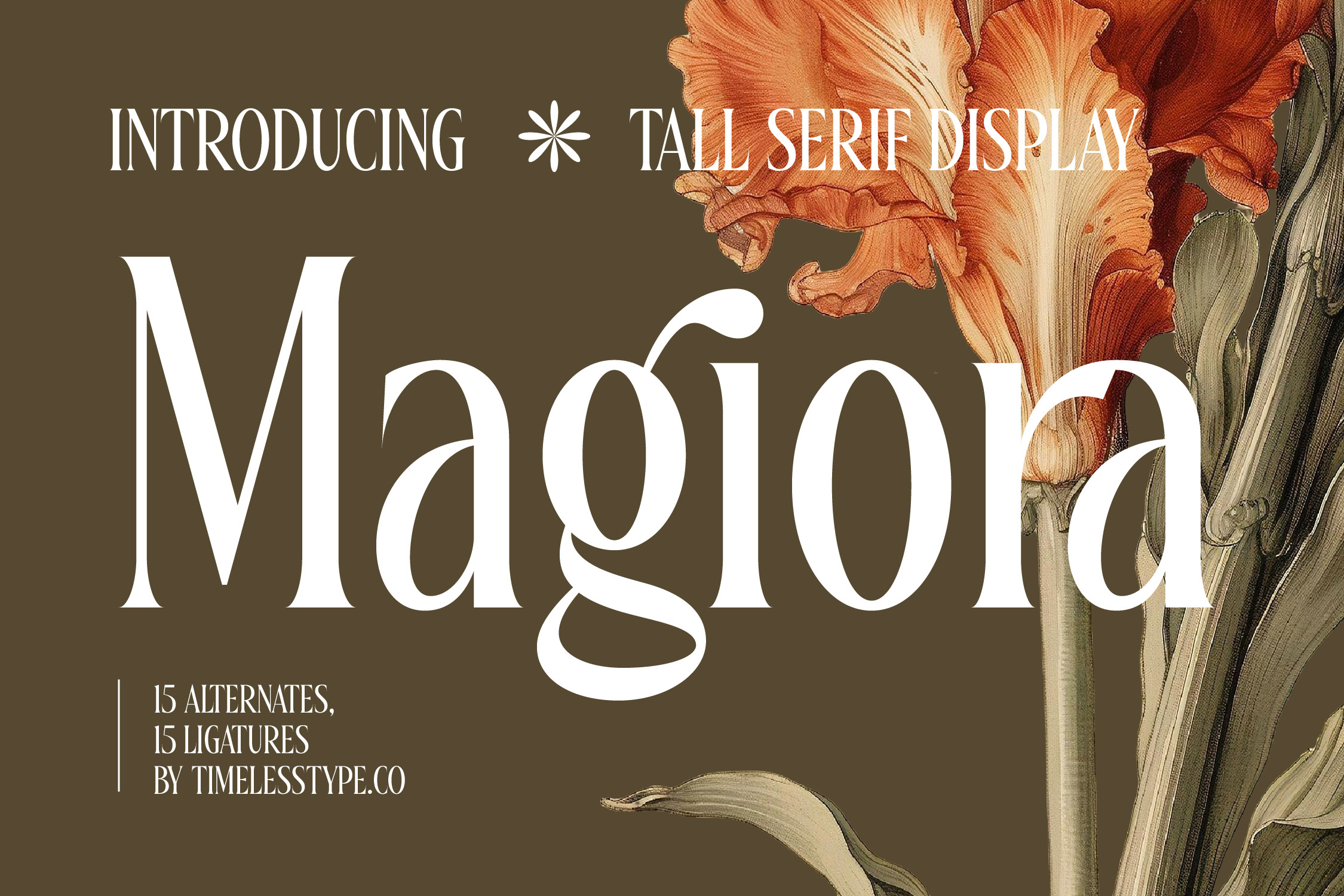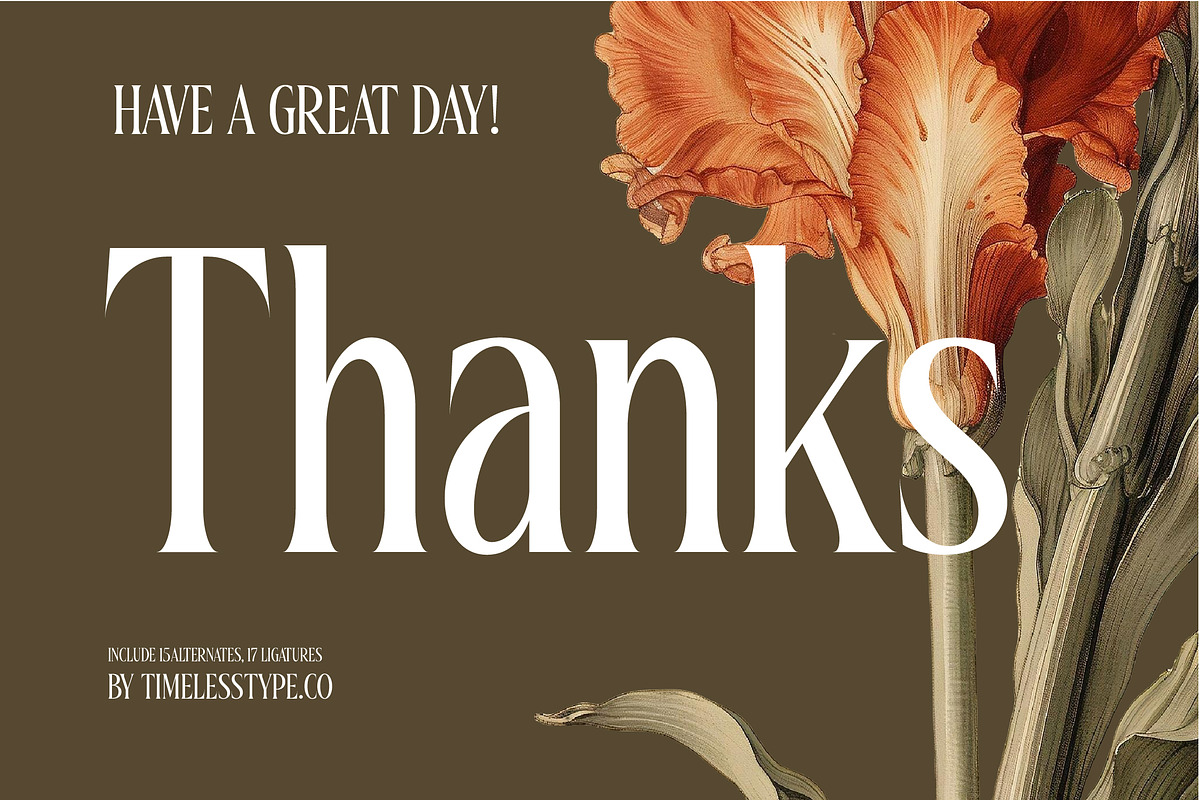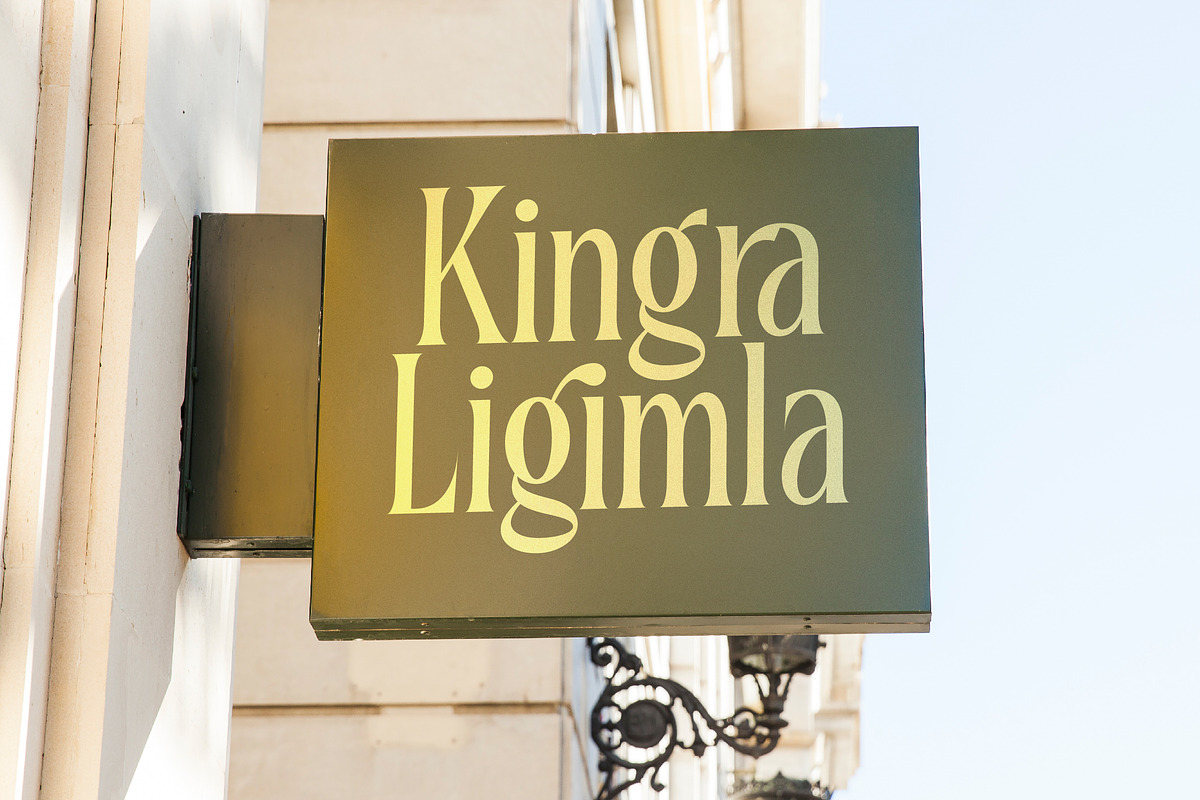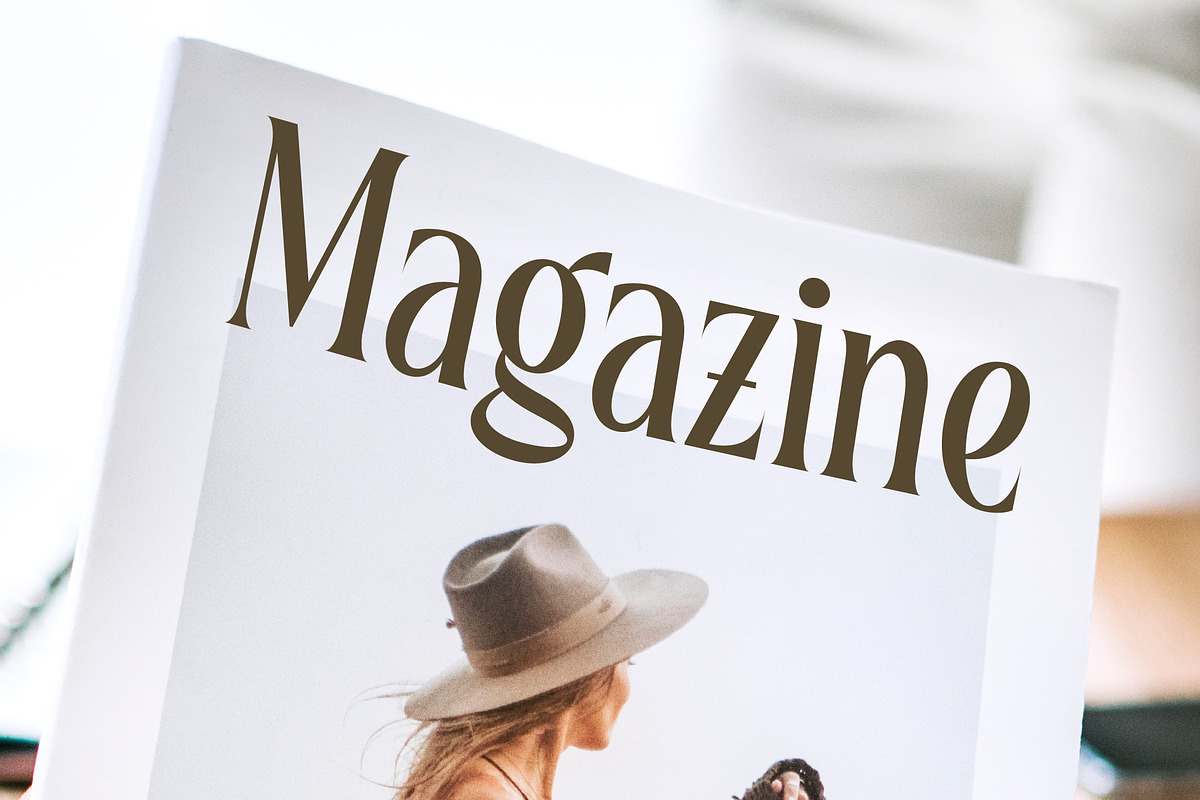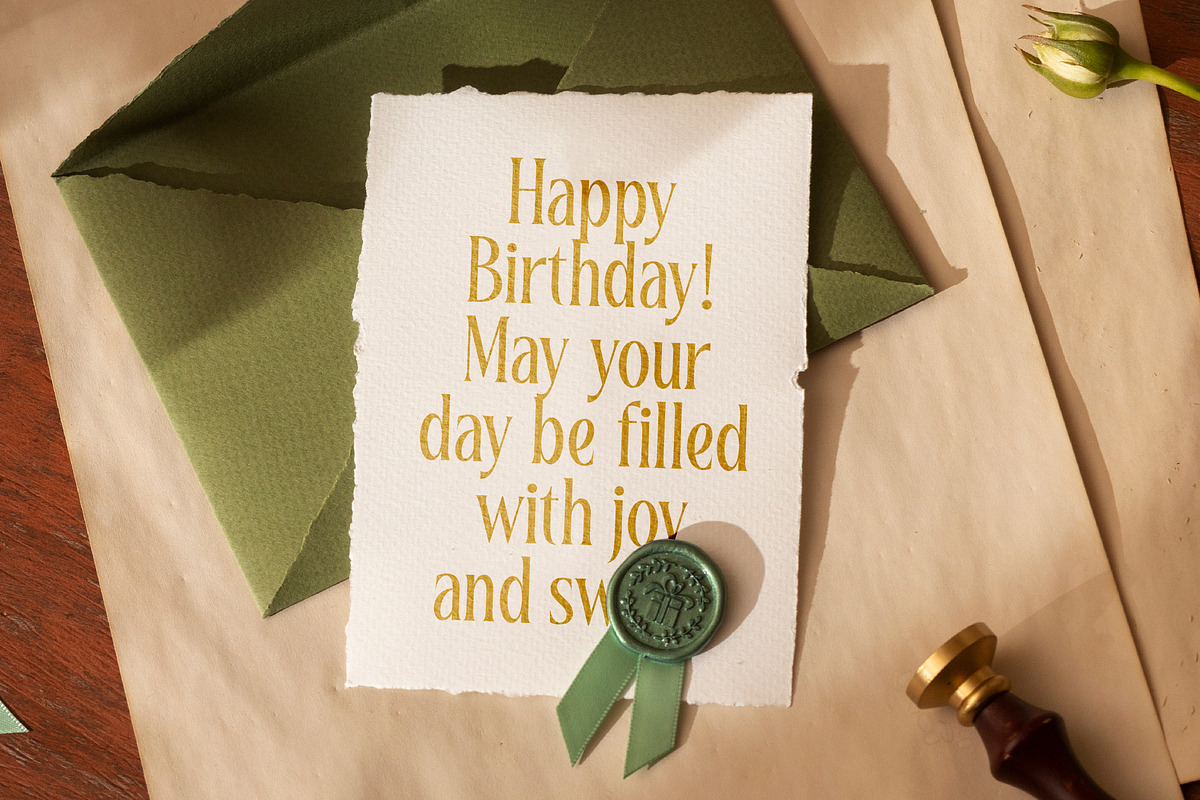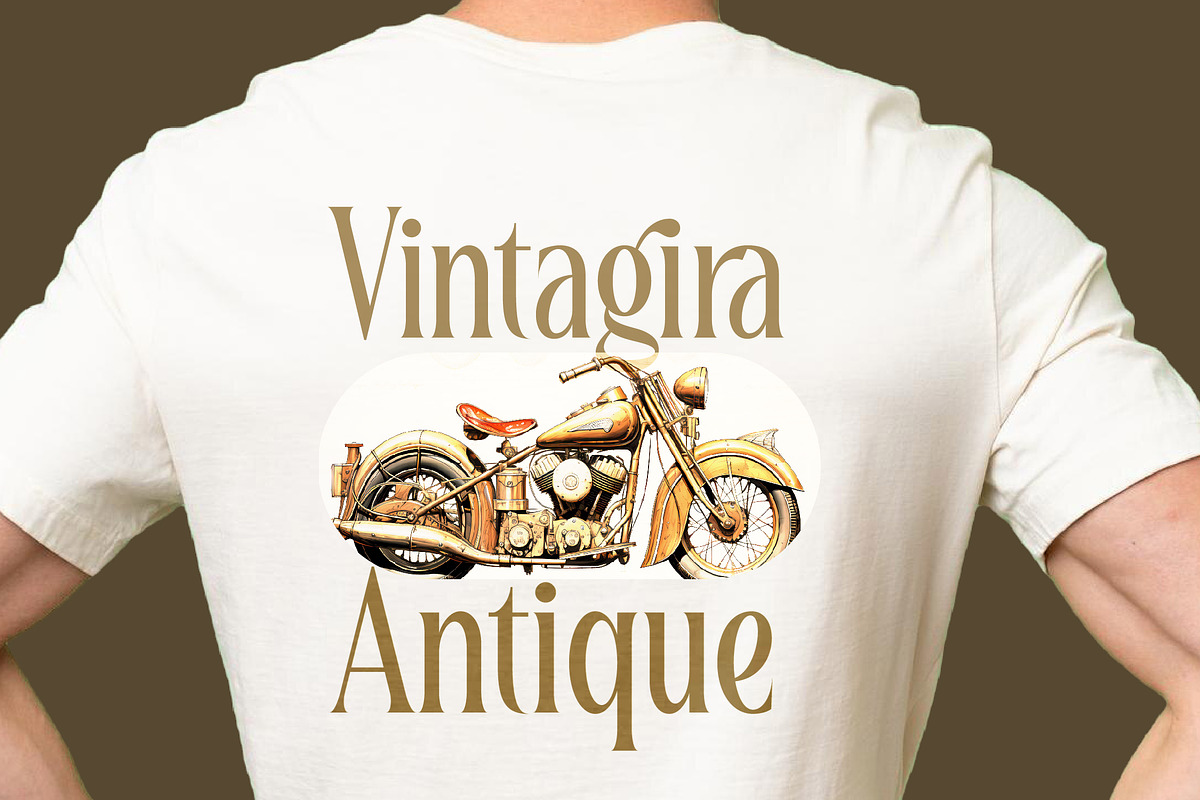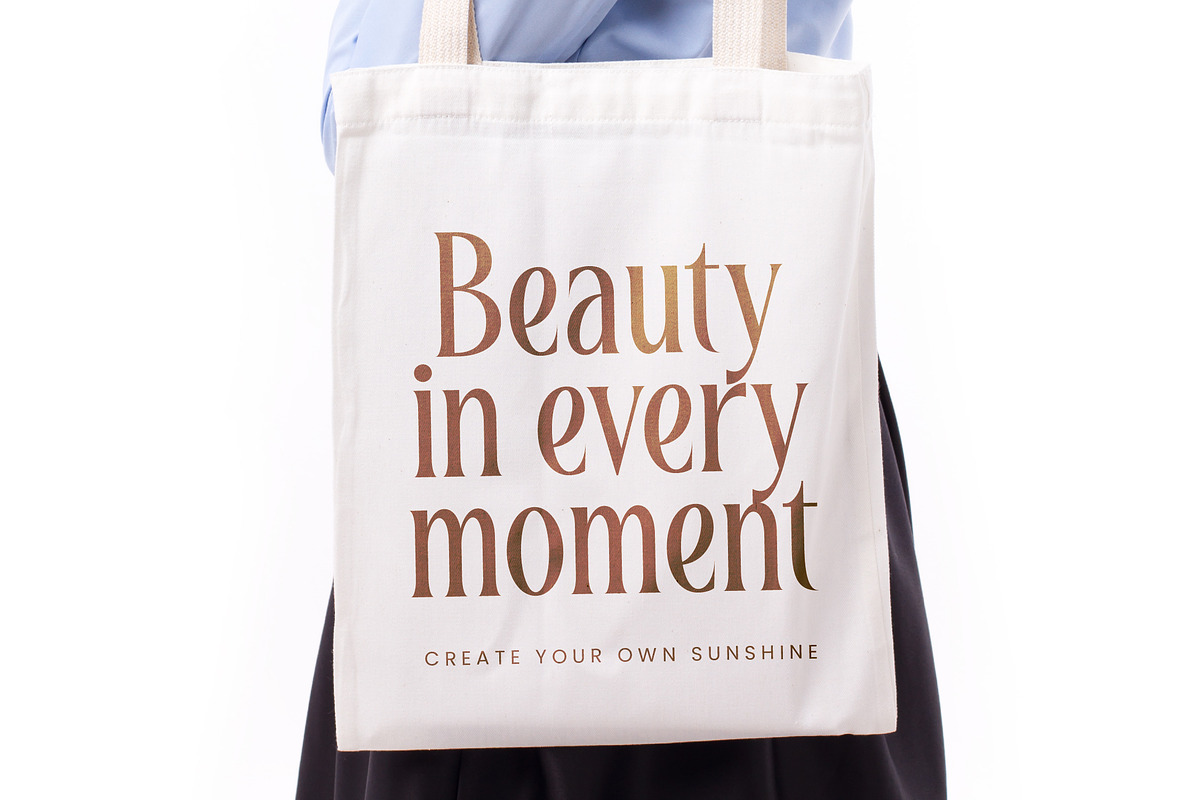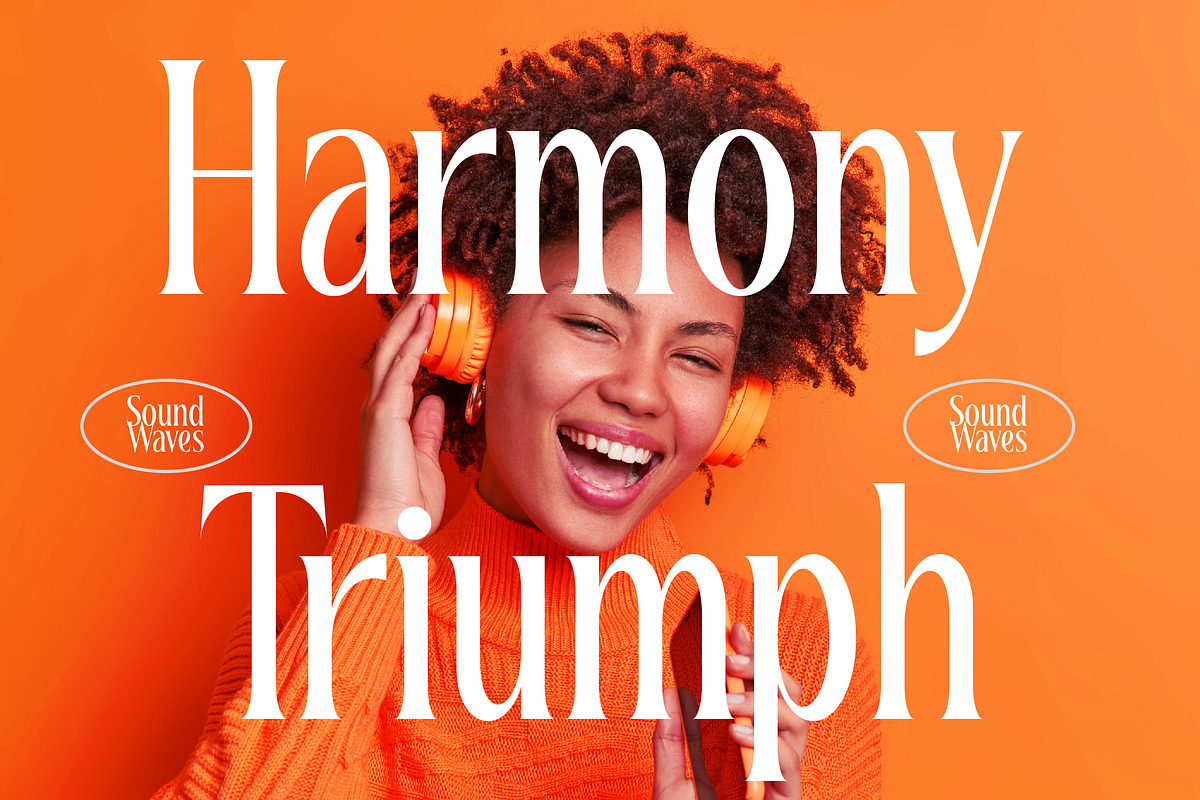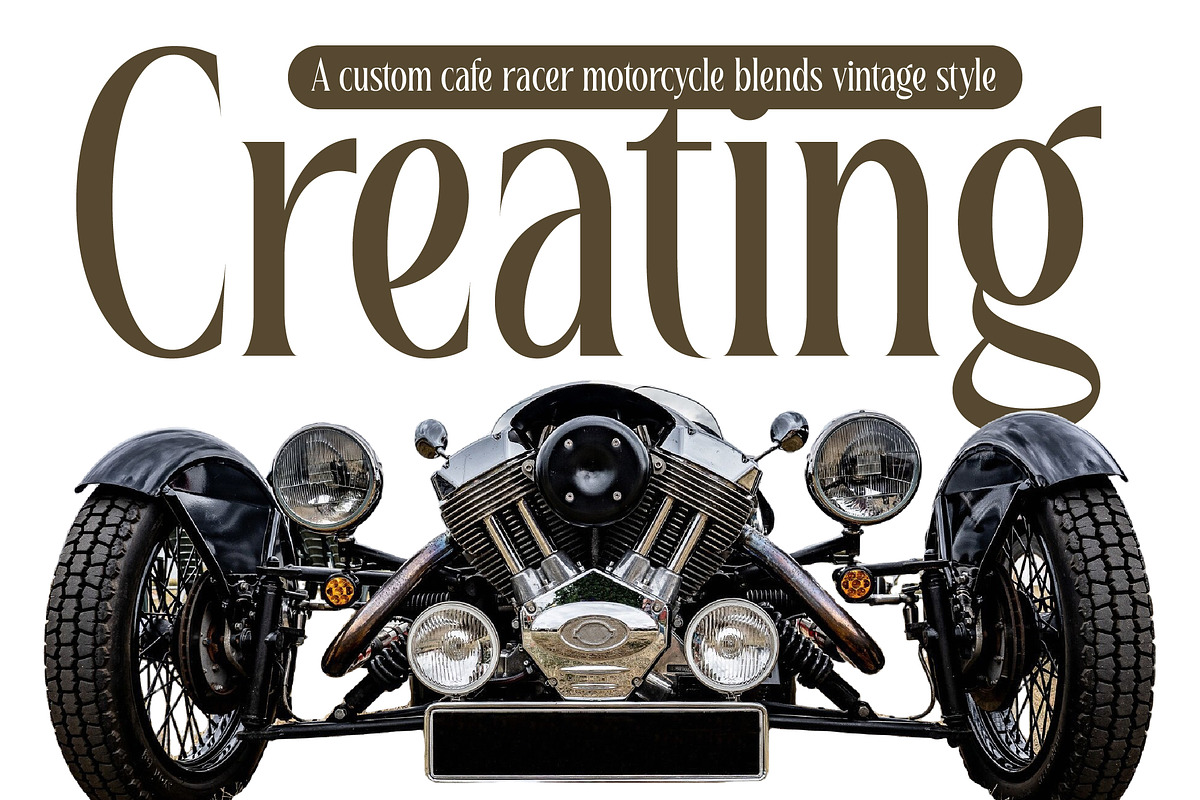
Magiora Tall Modern Serif Font
Step into a world of refined elegance where Magiora commands attention with its towering proportions and delicate grace. This font is more than just a typeface; it is a visual statement designed to transform every word into a piece of art.
Drawing inspiration from the timeless beauty of vintage botanical illustrations and the architectural lines of modern high-fashion capitals, this typeface bridges the gap between classic heritage and contemporary chic. Its slender stems and sharp terminals evoke a sense of organic sophistication found in nature's most delicate blooms.
The personality of this typeface is defined by its modern serif display qualities and luxury typography appeal, offering a high-contrast serif look that is perfect for any editorial font collection needing a significant branding impact. Each character is meticulously crafted to ensure that your headlines breathe with an air of exclusivity and quiet power.
Aligning perfectly with the current modern serif trend, this typeface meets the demand for editorial display fonts that prioritize unique aesthetics and character-driven typography. Designers looking to stand out in a saturated market will find its distinctive tall profile provides the edge needed for high-end visual storytelling.
This versatile typeface is a premier choice for logo design, comprehensive branding systems, and sophisticated editorial layouts that require a touch of class. From high-concept packaging and bespoke wedding invitations to the fast-paced world of fashion spreads, it delivers a consistent aura of prestige.
The toolkit includes a rich set of unique ligatures and stylistic alternates that allow for custom typographic flourishes. Full multilingual support and a wide range of international characters ensure your message resonates globally without losing its refined aesthetic.
- Ligature 15 Alternate 15